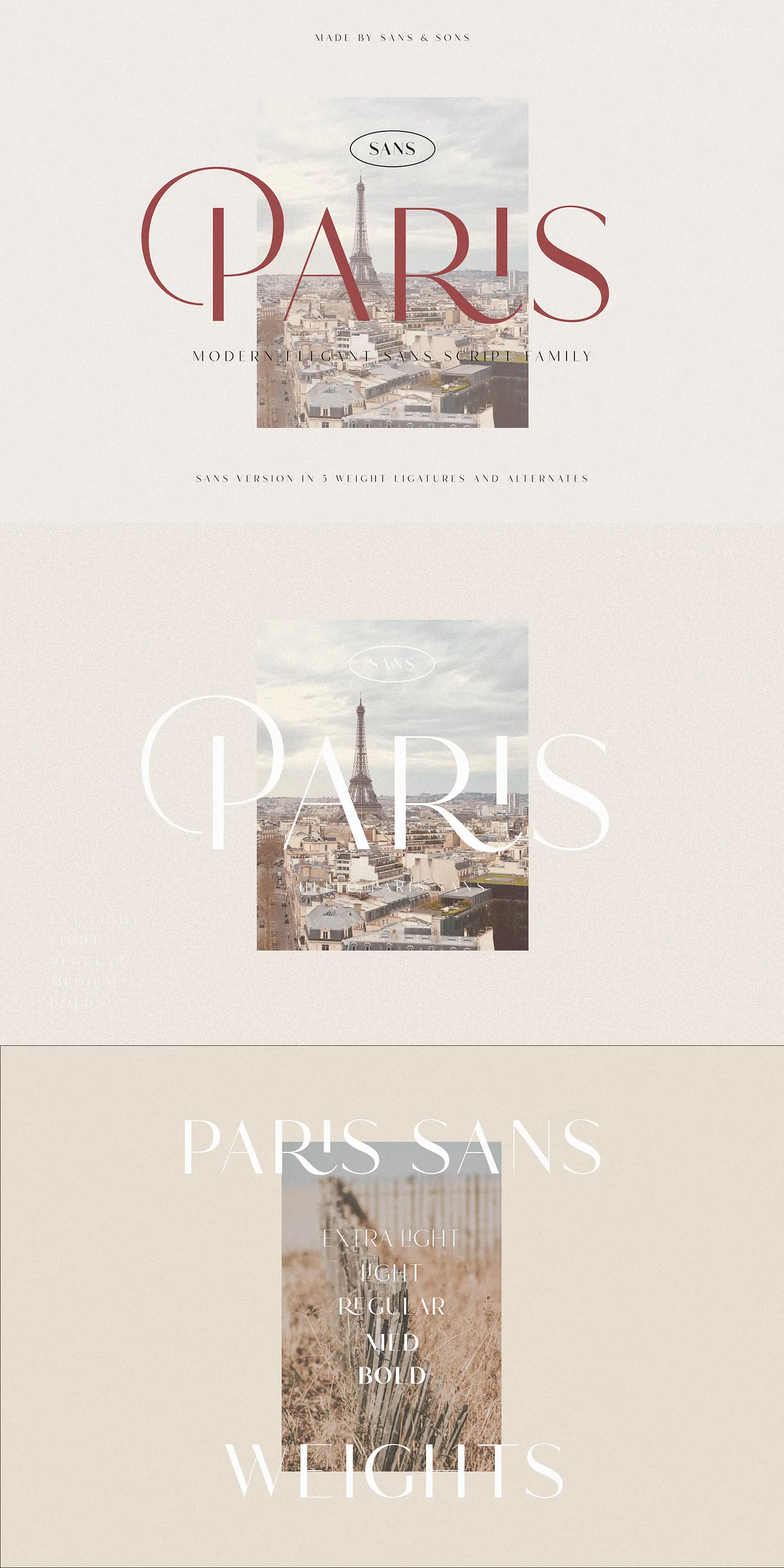
Hello Paris Sans introduces a refined sans-serif voice with a modern, elegant attitude designed specifically for branding, logos, invitations, masterheads, and editorial headers. This comprehensive family combines clean proportions with subtle character details so you can craft sophisticated identities and polished layouts quickly. Built with practical features and multiple weights, Hello Paris Sans puts professional typographic control at your fingertips.
Why Hello Paris Sans Excels For Branding And Logo Design
Balanced Modern Proportions With Distinctive Personality
Hello Paris Sans balances geometric clarity and humanist warmth to produce letterforms that read crisply at large sizes while maintaining charm. The careful stroke contrast and open counters preserve legibility in masterheads and logotypes while the overall voice remains modern and elegant for high-end brand work.
Designed For Consistent Visual Hierarchy Across Applications
Use Hello Paris Sans to establish consistent visual hierarchy across print and digital touchpoints. Its well-tuned weights and spacing let you move smoothly from bold display headlines to refined subheads and supporting text. You will maintain brand coherence whether you are designing stationery, web banners, or packaging.
Features Included In The Typeface Package
Comprehensive Language Support And Professional Glyphs
The family includes multilingual glyph coverage so you can deploy Hello Paris Sans in international projects without compromise. PUA-encoded alternates and ligatures offer creative control for crafting unique wordmarks and typographic details. These features combine to make the typeface versatile for global branding and sophisticated layouts.
Practical Applications And Pairing Recommendations
Best Uses For Hello Paris Sans In Real Projects
Apply Hello Paris Sans to identity systems, wedding and event invitations, editorial mastheads, product packaging, web hero headlines, and promotional materials. Its refined aesthetic elevates visual systems and creates an approachable yet premium presence.
Suggested Typeface Pairings For Stronger Design
Pair Hello Paris Sans with a delicate serif to accentuate elegance in editorial spreads, or combine it with a geometric sans for clean, contemporary interfaces. For expressive branding, place the sans in contrast with a script or hand-lettered display to balance modern structure with artisanal warmth.
Hello Paris Sans delivers a modern, elegant sans family that actively supports designer workflows—bringing consistent typographic tone, multilingual reach, and creative alternates. Use the family to build polished, professional identities and elevate your typographic systems across print and digital projects.